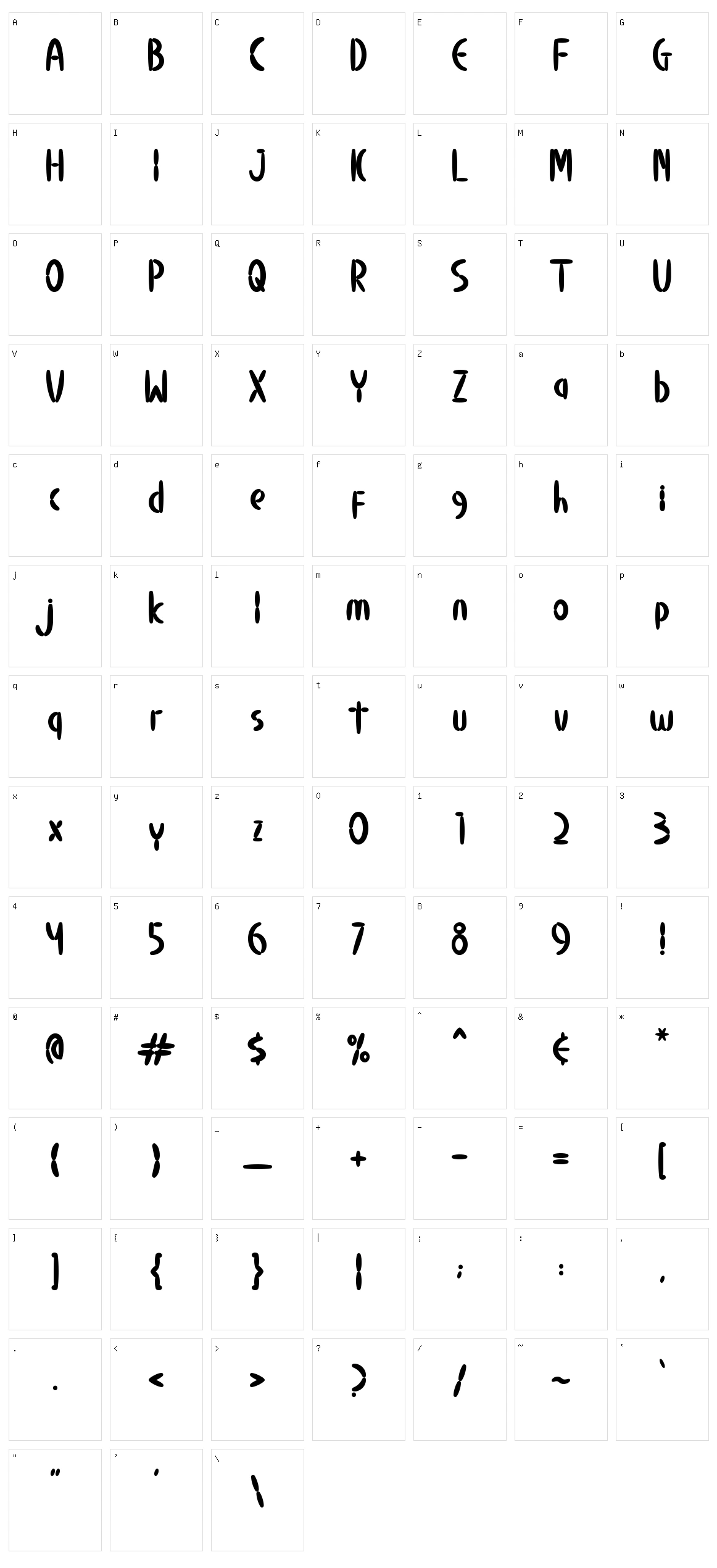
The free font Calm Avocado Dash is carefully designed by Hadjar Creative, showcasing a thoughtful balance of creativity and usability and falls under the Cartoon font style. When you download the ZIP file, it contains only 41.74 KB of font files, making it lightweight and quick to download. Please review the license details below to understand permitted usage and distribution rights. If license information is not available, we recommend using this font for personal projects only or contacting the author directly for commercial usage permissions.
This font is perfect for your work design.